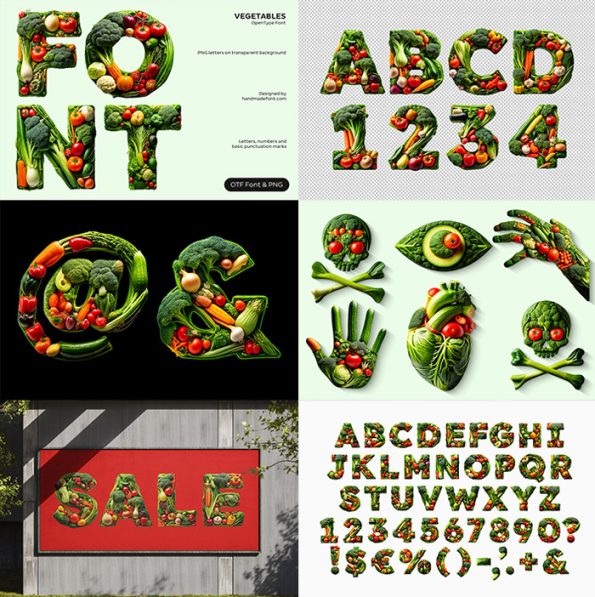
Vegetables Font – Fresh Garden Produce Lettering
Vegetables Font is a playful produce-inspired typeface built from tomatoes, peppers, carrots, broccoli and leafy greens. Ideal for food packaging, farmers’ market posters and cheerful branding. Includes a colour OpenType Font (OTF) with uppercase letters, numbers and punctuation, plus 90 individual high-resolution PNG characters on transparent backgrounds for flexible custom layouts.
Fresh Garden Lettering with Real Vegetable Texture
Vegetables Font turns tomatoes, peppers, carrots, broccoli and leafy greens into bright handcrafted lettering. Every character has the colour, texture and irregular charm of fresh produce, giving headlines a lively market-stall feel. It is a cheerful choice for designs that need an organic food mood without looking generic.
Made for Food Branding and Colourful Campaigns
Use Vegetables Font for farm-shop packaging, restaurant menus, grocery promotions, recipe graphics, children’s food projects and cheerful social posts. Its chunky produce-built forms work best at display size, where the tiny surface details and varied ingredients can be appreciated. The result is friendly, appetising typography with a tangible handmade character.
Animated Vegetables Font GIF cycling through vegetable-built letters
Pair It with More Playful Food Typography
Vegetables Font preview with tomato, pepper and vegetable letters
Vegetables Font letter N assembled from fresh vegetables
Vegetables Font alphabet with vegetable-inspired uppercase letters
Vegetables Font used in colourful fresh food branding
Close-up of Vegetables Font letters with fresh produce textures
Vegetables Font shown on a food packaging design
Vegetables Font oversized letters made from broccoli, carrots, tomatoes, peppers, garlic, and cabbage printed on a white T-shirt
Vegetables Font used for a bright restaurant menu
Vegetables Font letters arranged in a colourful composition
Vegetables Font in an organic food campaign layout
Vegetables Font detail with tomato carrot and leafy green textures
Vegetables Font on a playful grocery label
Vegetables Font headline on a fresh food poster
Vegetables Font used in a healthy recipe graphic
Vegetables Font colourful produce-built letter composition